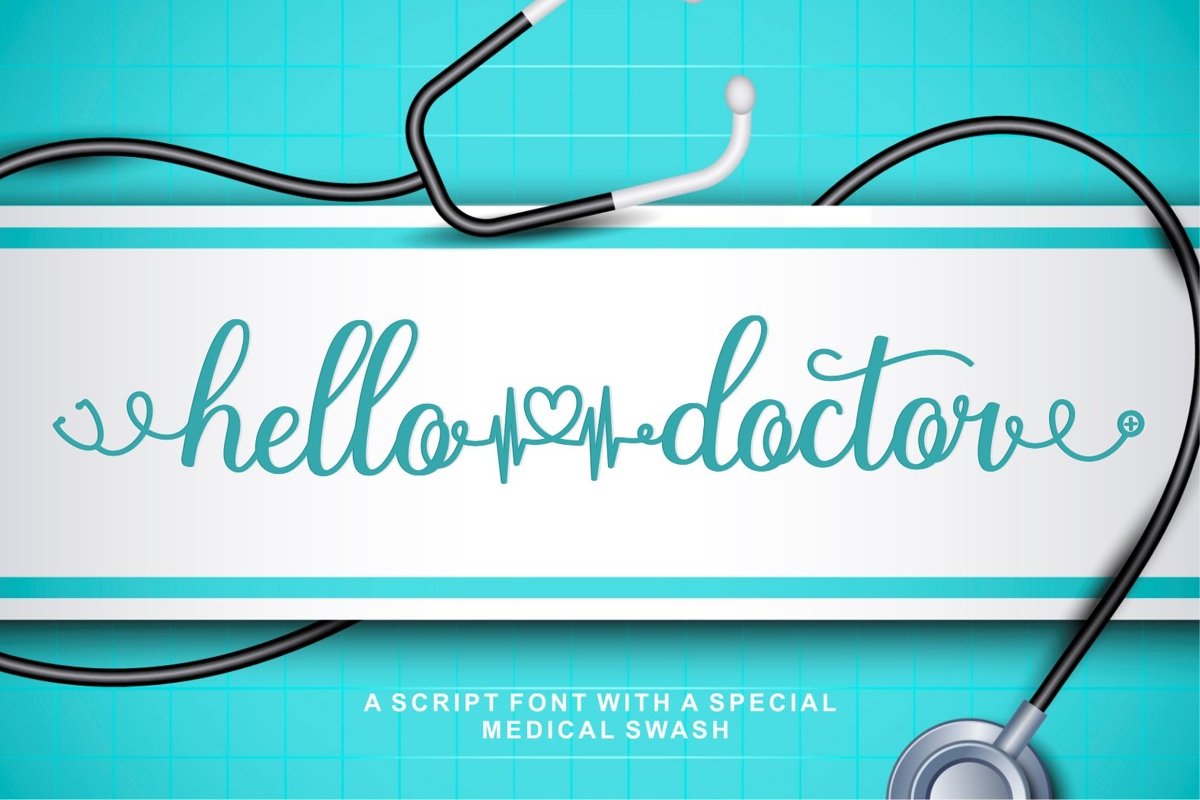
Hello Doctor
Hello Doctor is a modern calligraphy font with special medical theme characters. It can add a romantic touch to any crafting project!
And this font that is perfect for a variety of designs.
Its natural handwriting makes it suitable for logotype,Cricut, Silhouette, crafting, wedding invitations, Valentine’s Day designs, and much more!